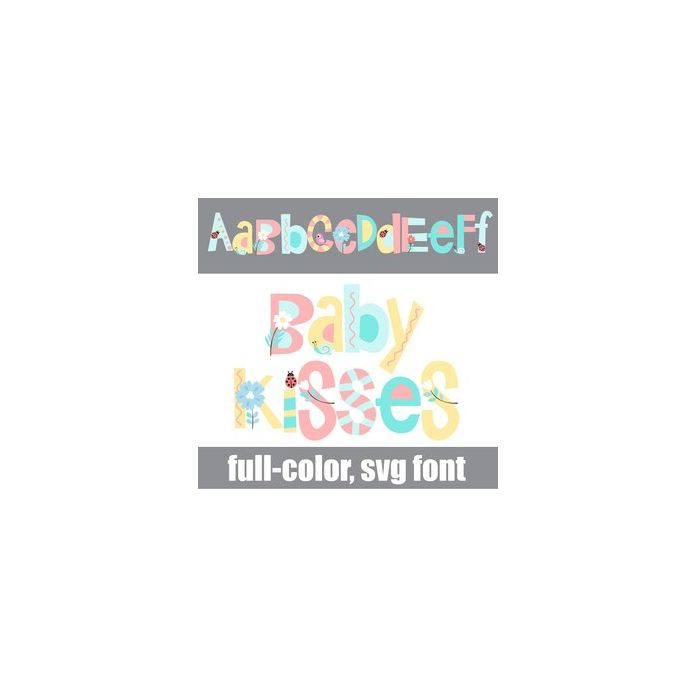
This full-color font is filled with pastel baby colors and cutesy little flowers, hearts, birds and more. There is an alt case w/ additional colors you can access through your system or Silhouette's glyph map.